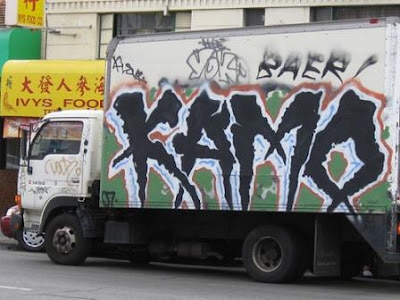
MAKING IT look cool. Graffiti alphabets as wardrobe for vehicle to put on, is no longer shocking, its rather common these days. Like one we spotted at the picture, that truck definitely has its own style on applying the paint for the writer works. Nothing special though, alphabets is modify well in that scary looks. Black for alphabets, can definitely consider as attracting attention, so the viewer will focus only on the alphabets. Coz the background already having more bright color, so alphabets with darken color are the best choice. Trailed with red, this alphabets seem more appealing. With more imagination and creativity, the graffiti alphabets that we want to create is no longer impossible.